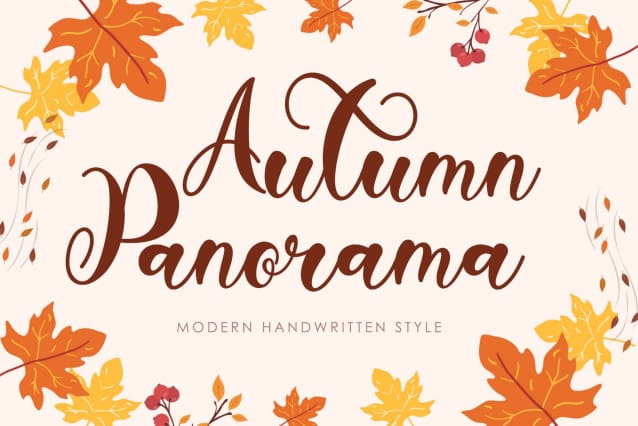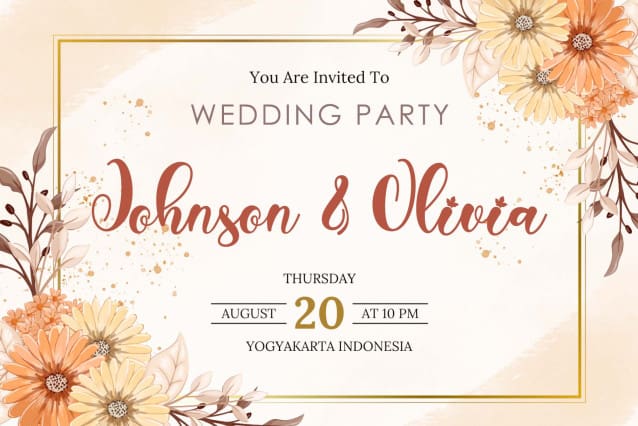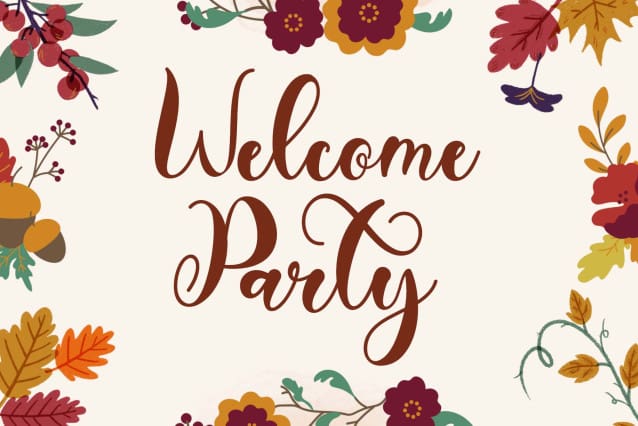
Autumn Panorama Font
Autumn Panorama Font is a beautiful and pretty handwritten font. This font is equipped with uppercase, lowercase, numerals, punctuations and multilingual support. It is very suitable for posters, banners, branding, fall, autumn, christmas, halloween, back to school, valentine and others.